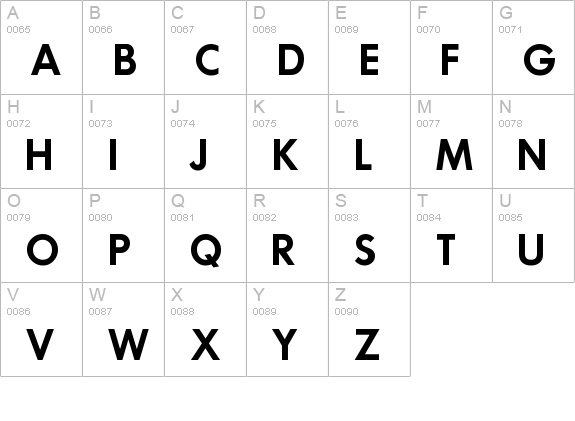
Futura ICG Demi Font Details
Futura ICG Demi is a sub-bold, structured variant in the Futura typeface family \xE2\x80\x94 well suited to sub-headlines and emphasised passages.
Futura ICG Demi is a bold and striking typeface that exudes modernity and sophistication. Its sleek lines and geometric shapes make it perfect for creating eye-catching designs that demand attention. The Demi weight of this font strikes the perfect balance between elegance and impact, making it ideal for headlines, logos, and other prominent text elements. What makes Futura ICG Demi even more appealing is that it is available for free download at FontsMarket.com. This means that you can easily access this versatile font and use it in your projects without any restrictions. With its clean and timeless design, Futura ICG Demi is sure to elevate the visual appeal of any design it is used in.